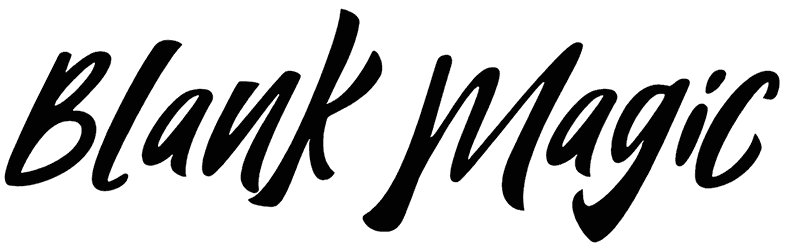
Blank Magic Font
Designed byFontherapy
Utilizing this script font can bring a fantastic layout for you. Just apply it to your logos, blogs, apparel products, and many digital or printed projects. Blank Magic font is free and offers semi-bold letters. Try it out now and inspire your clients. Are you after more? Check out Resource Boy.